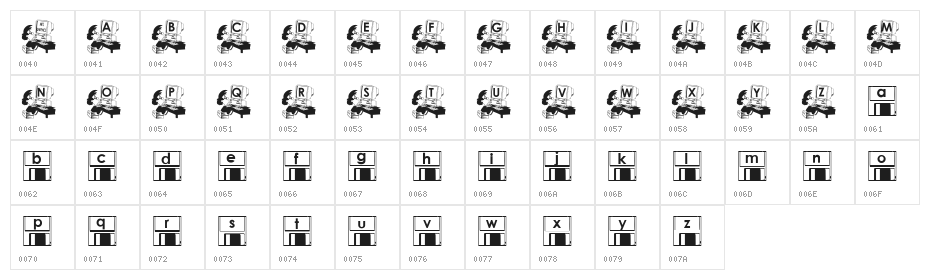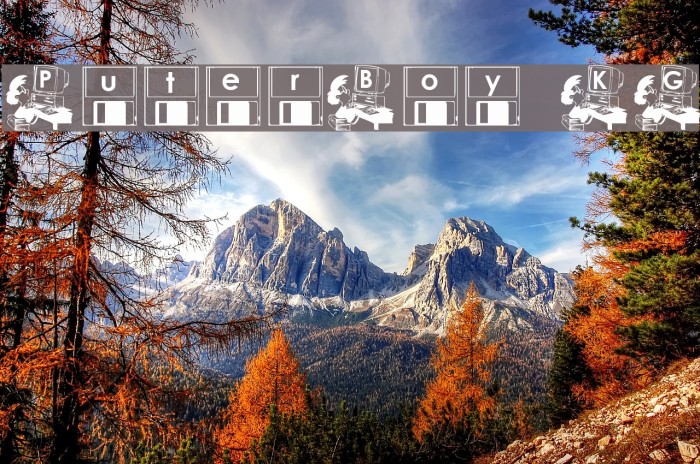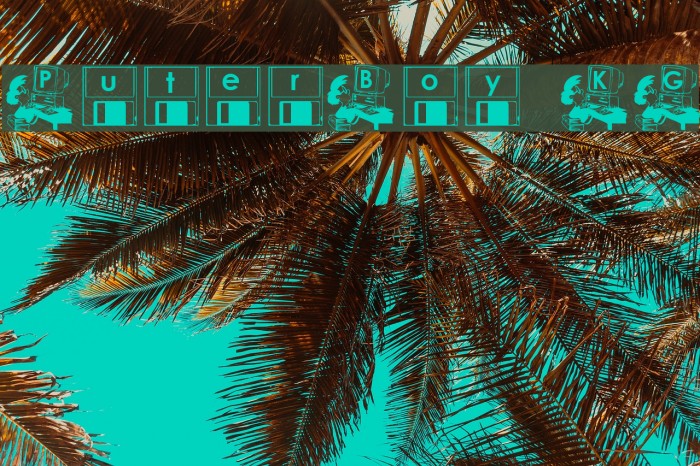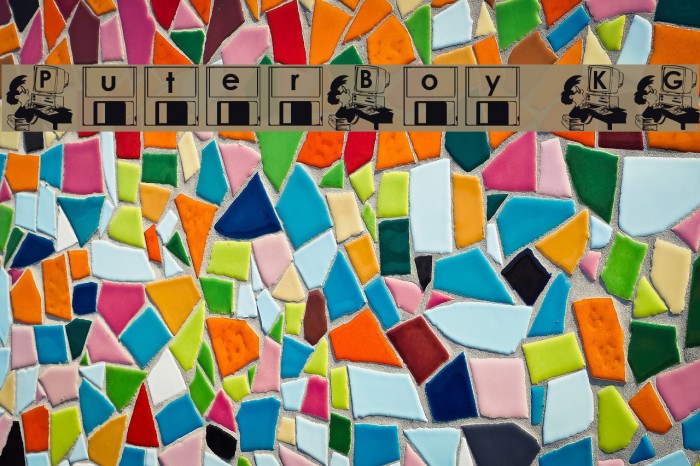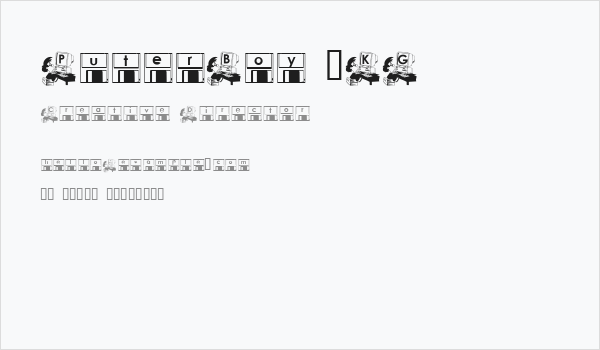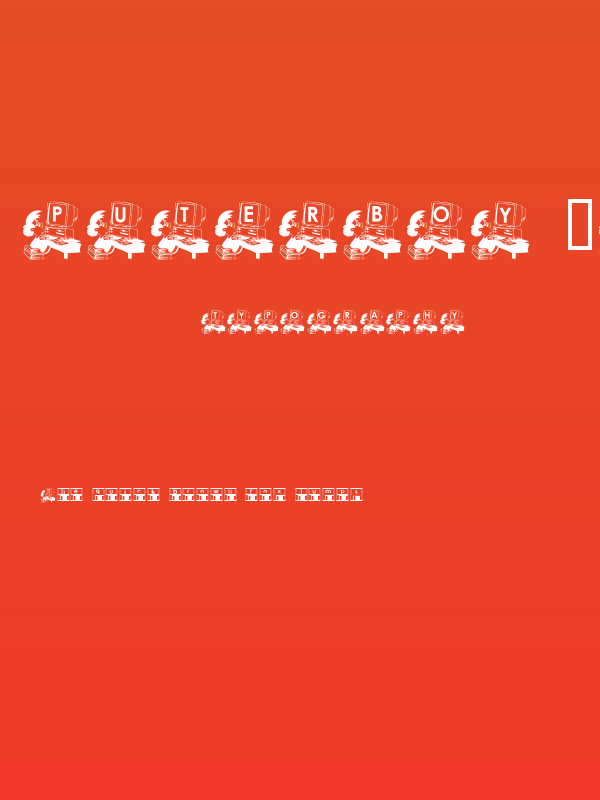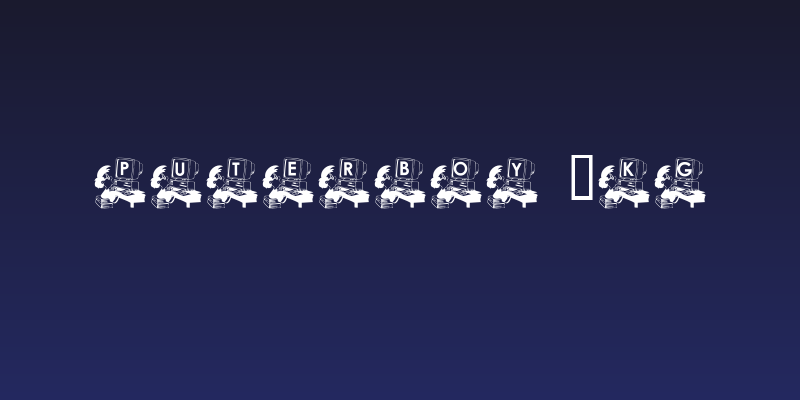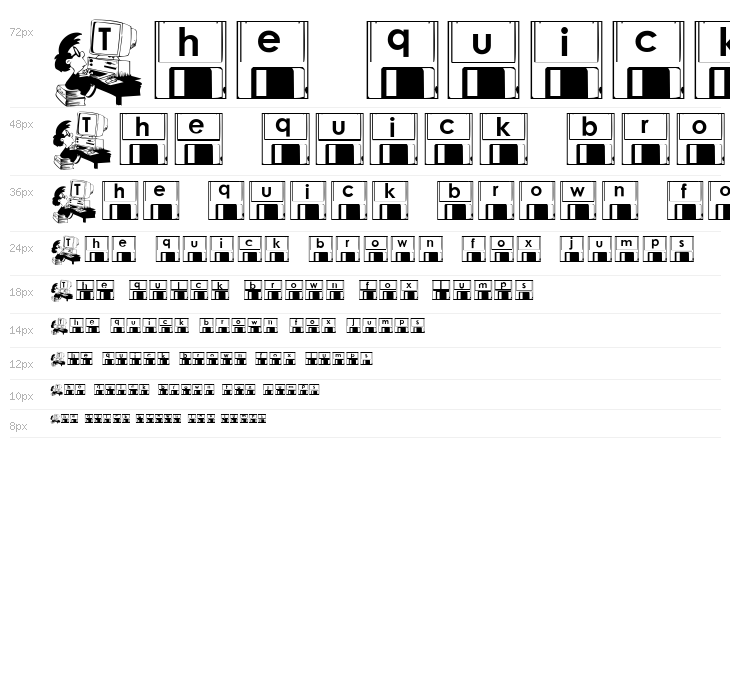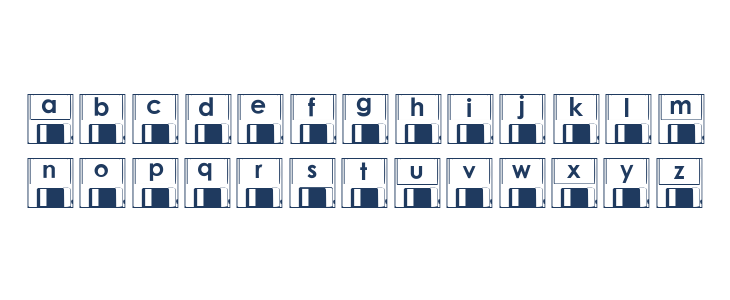
PuterBoy _KG Font
PuterBoy _KG Description
This playful and whimsical font features characters embedded within a cartoonish design of a person using a computer. Each letter is creatively integrated into the monitor of the computer, adding a unique and humorous touch. The uppercase letters are depicted with a character sitting at a computer, while the lowercase letters are shown on a floppy disk, evoking a sense of nostalgia for the early days of computing. The font is highly decorative and is likely to capture attention with its distinctive style.
| Proposed Projects | Ideal for tech-themed posters, retro computer games, playful branding, or educational materials about technology. |